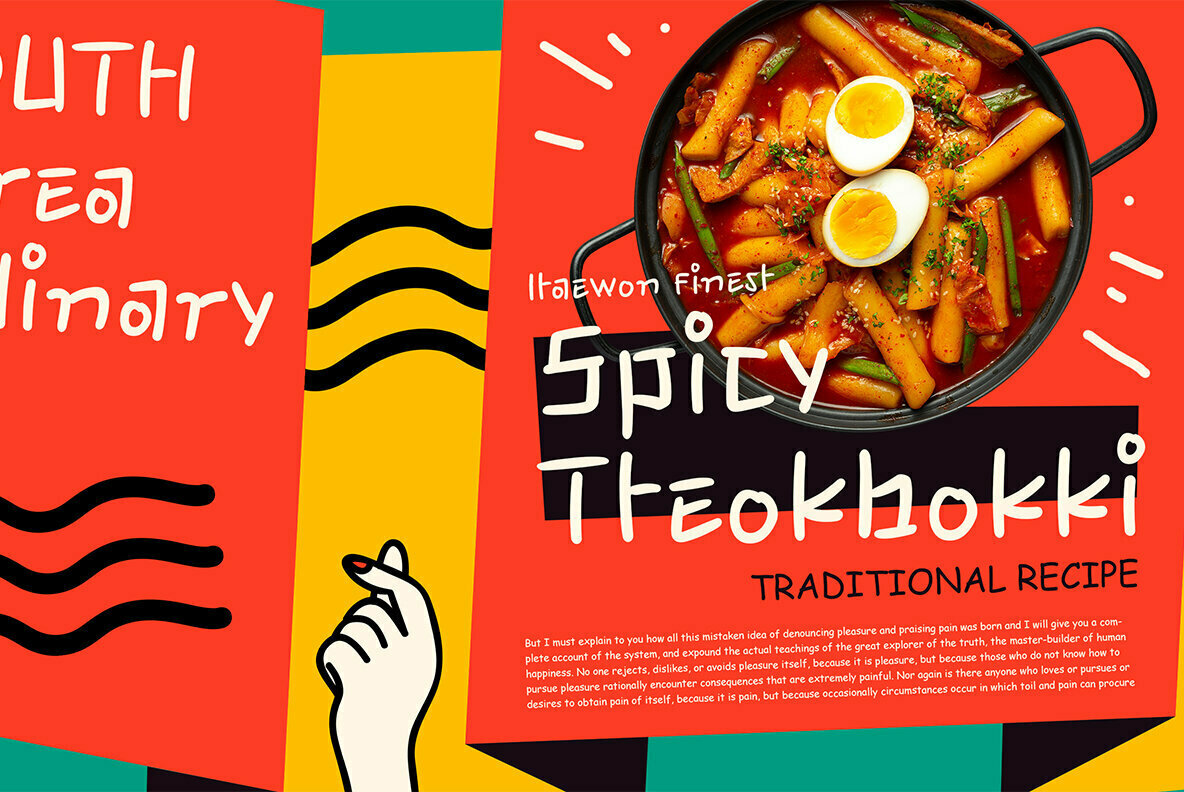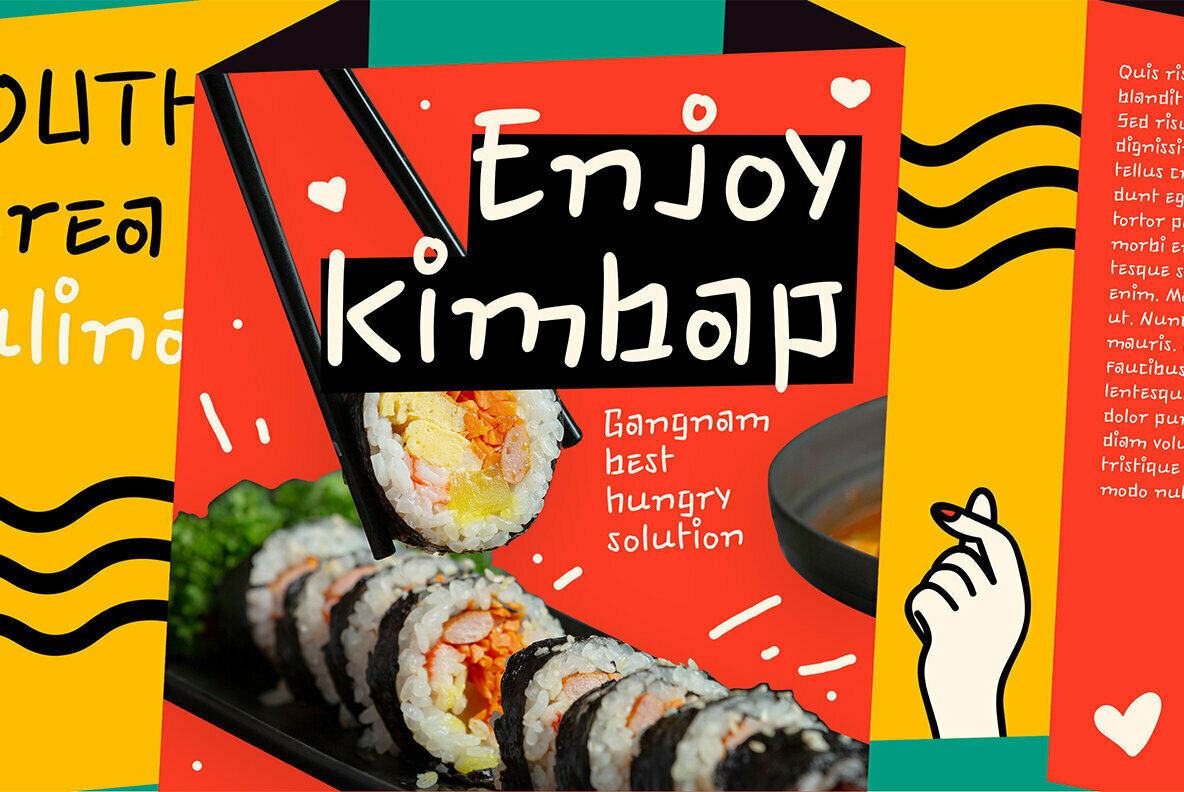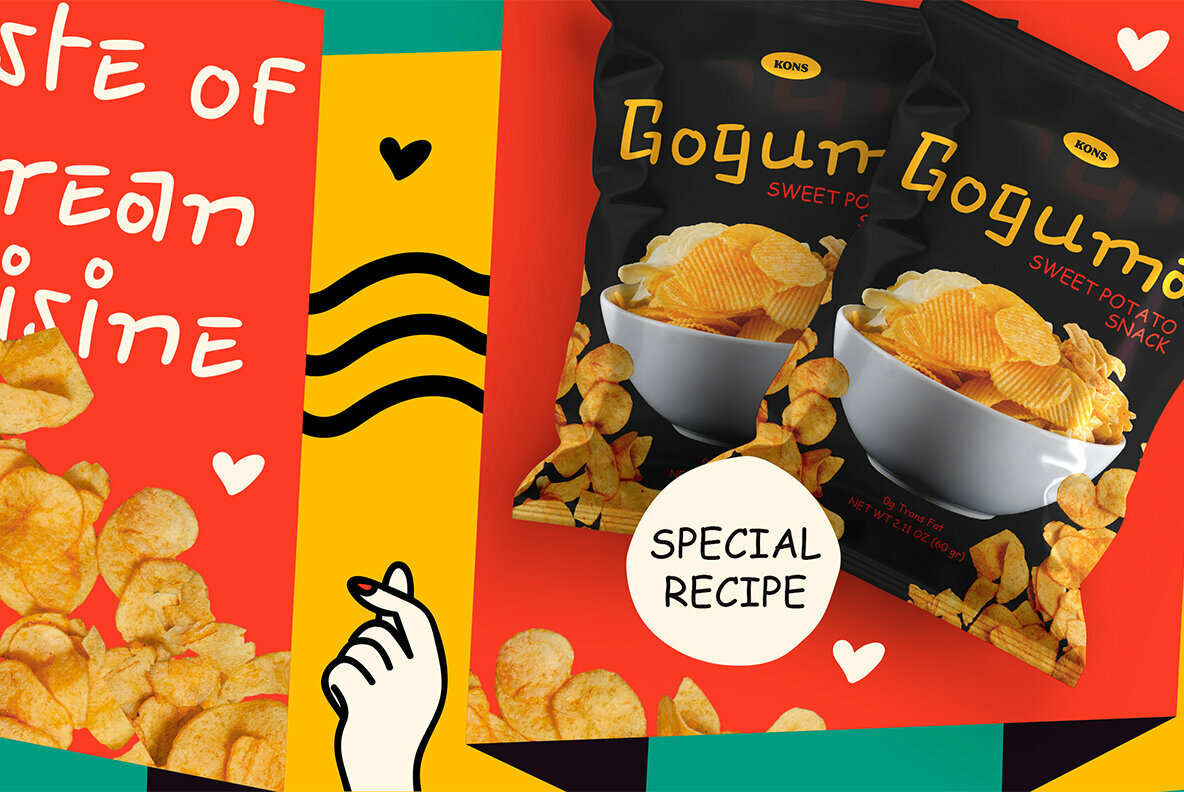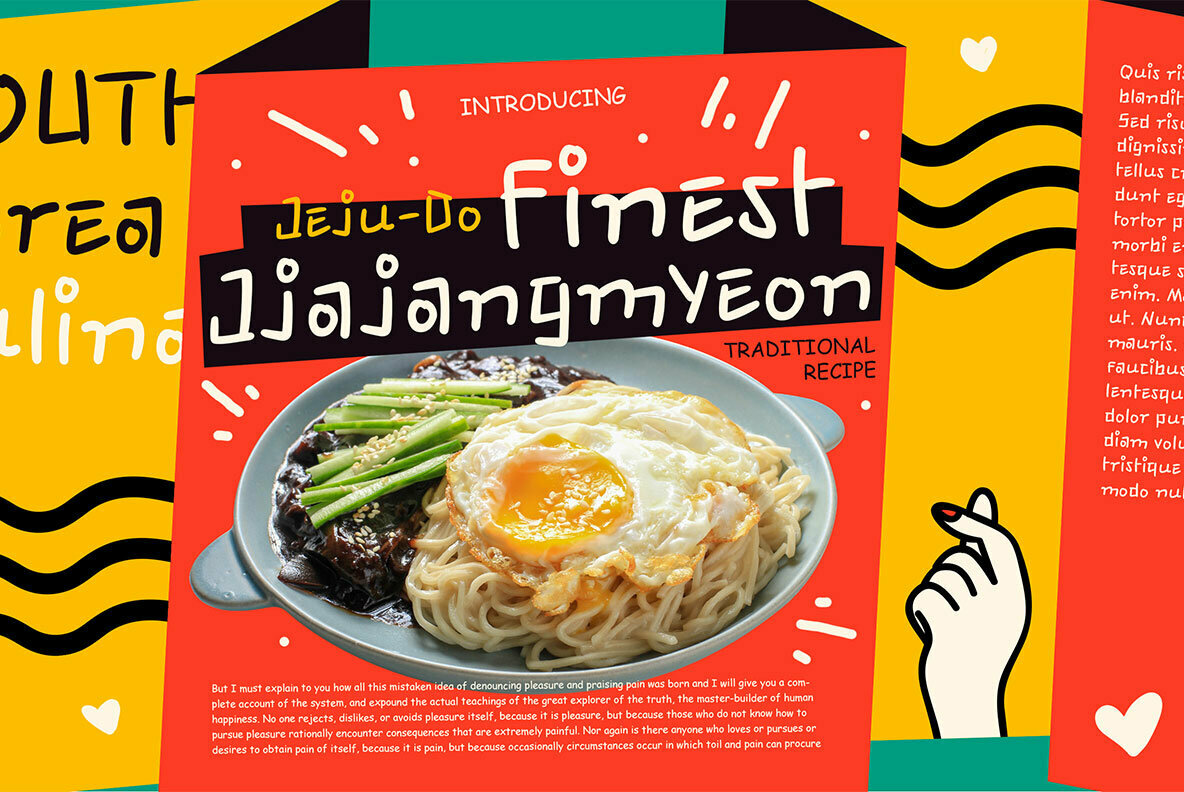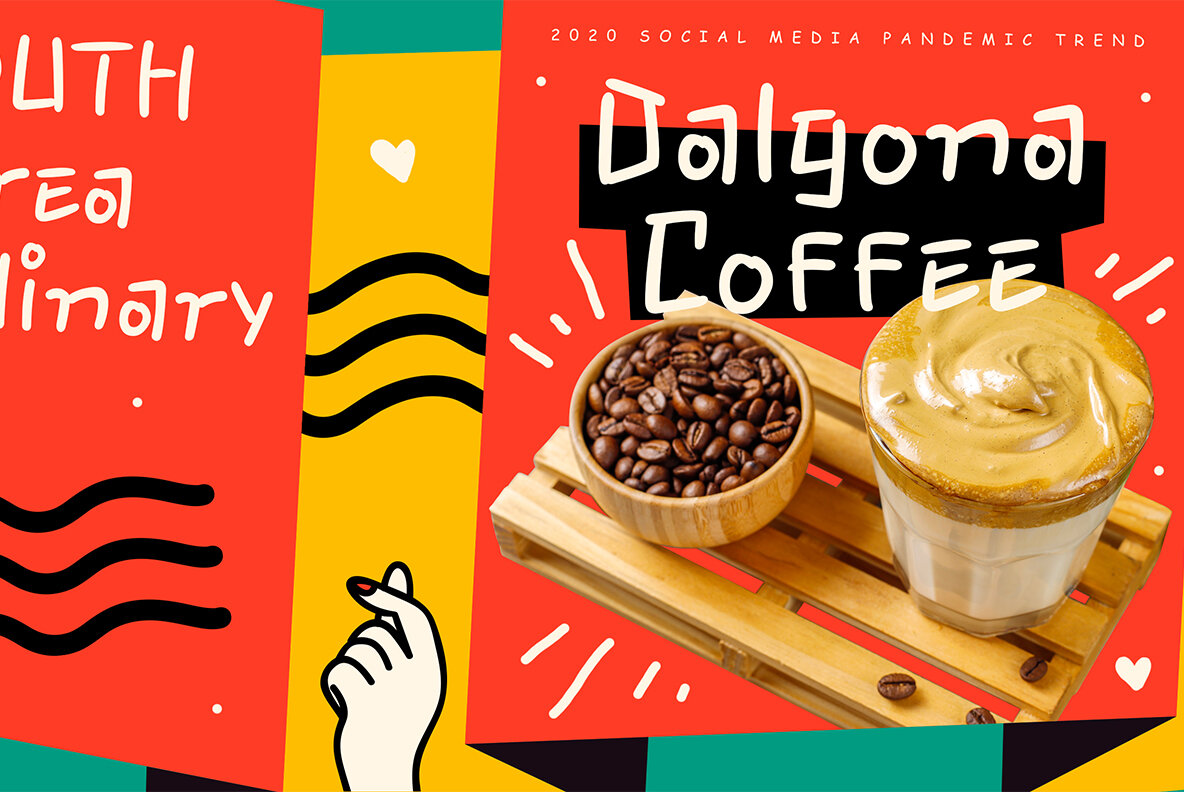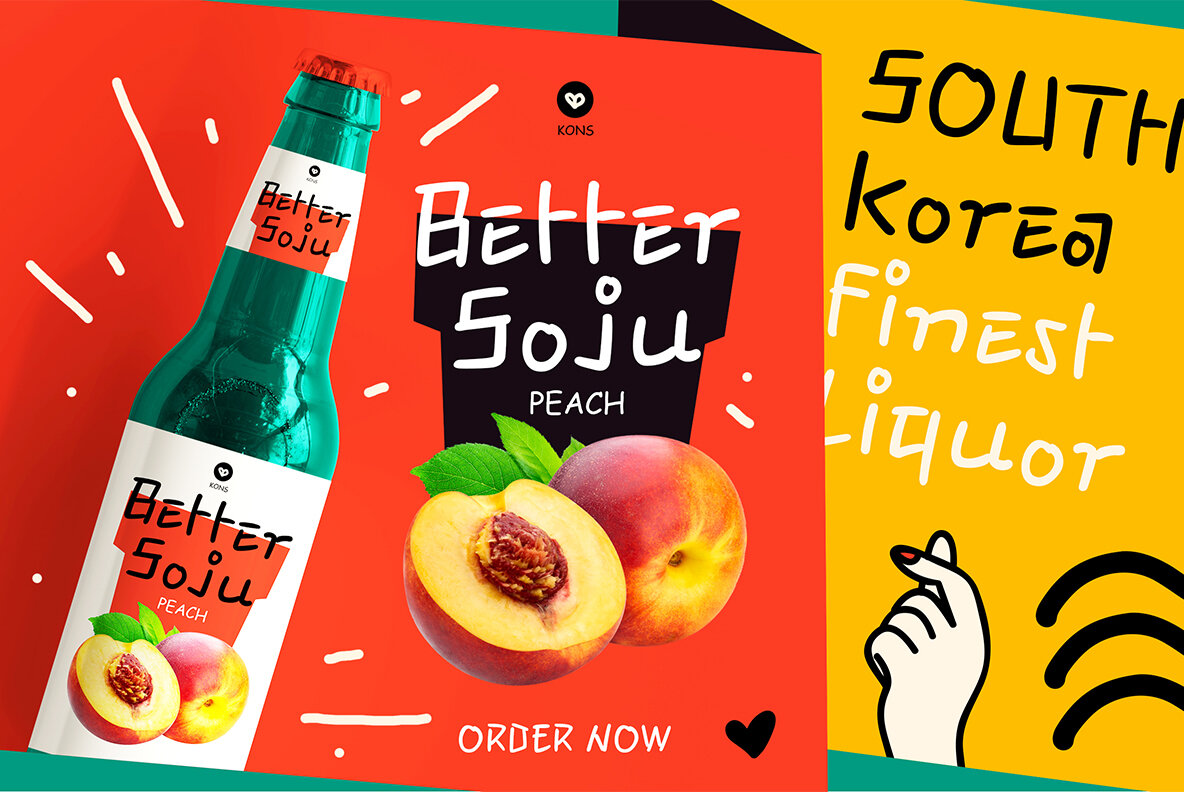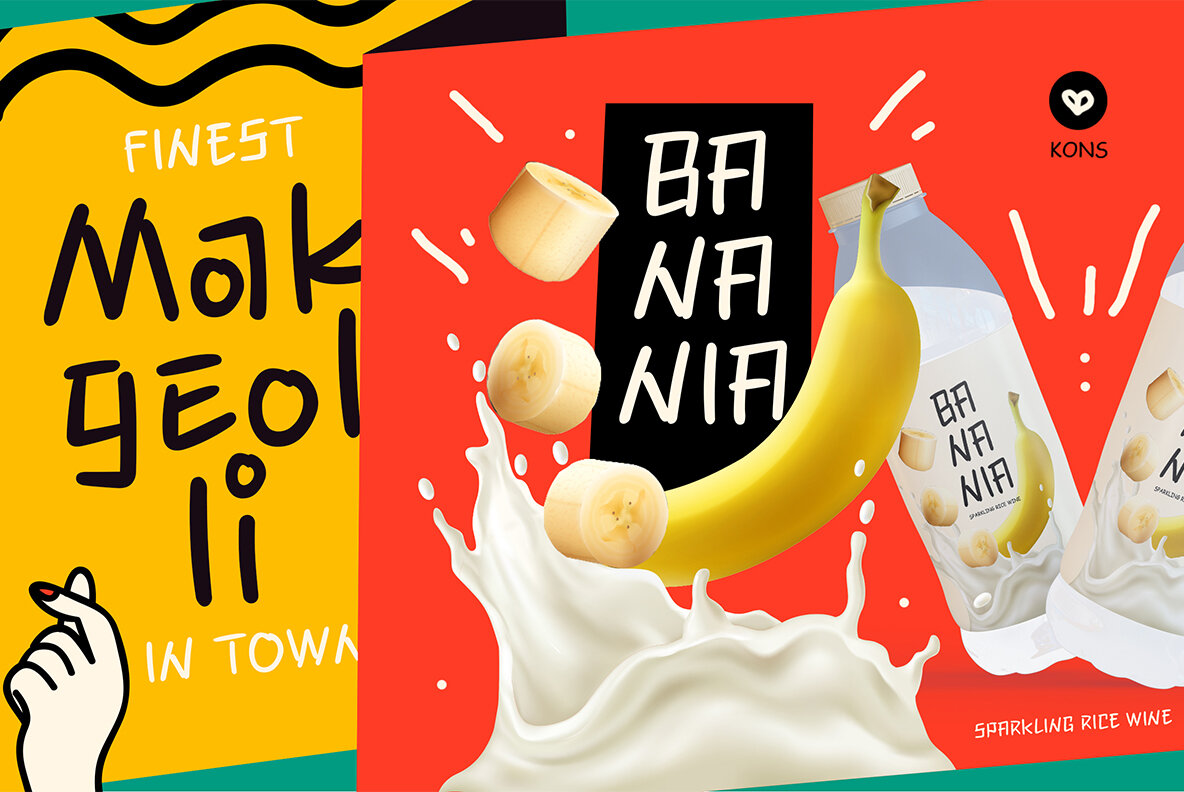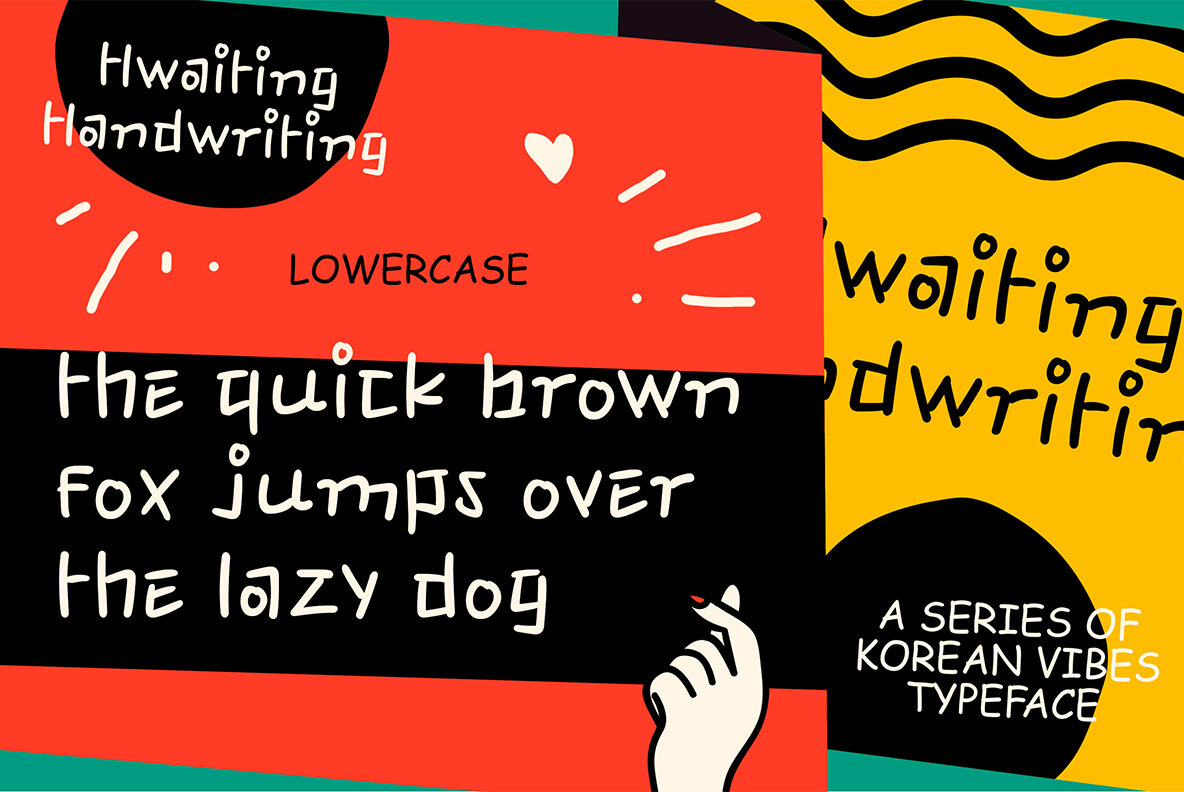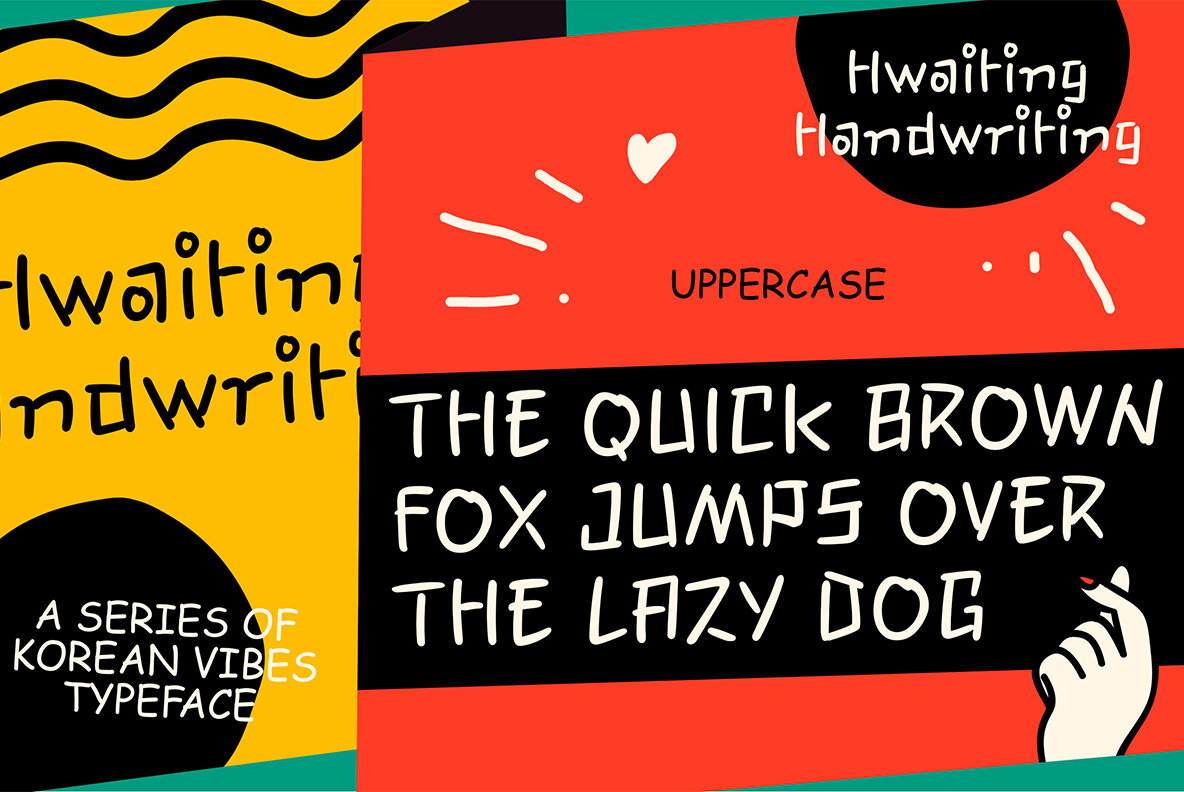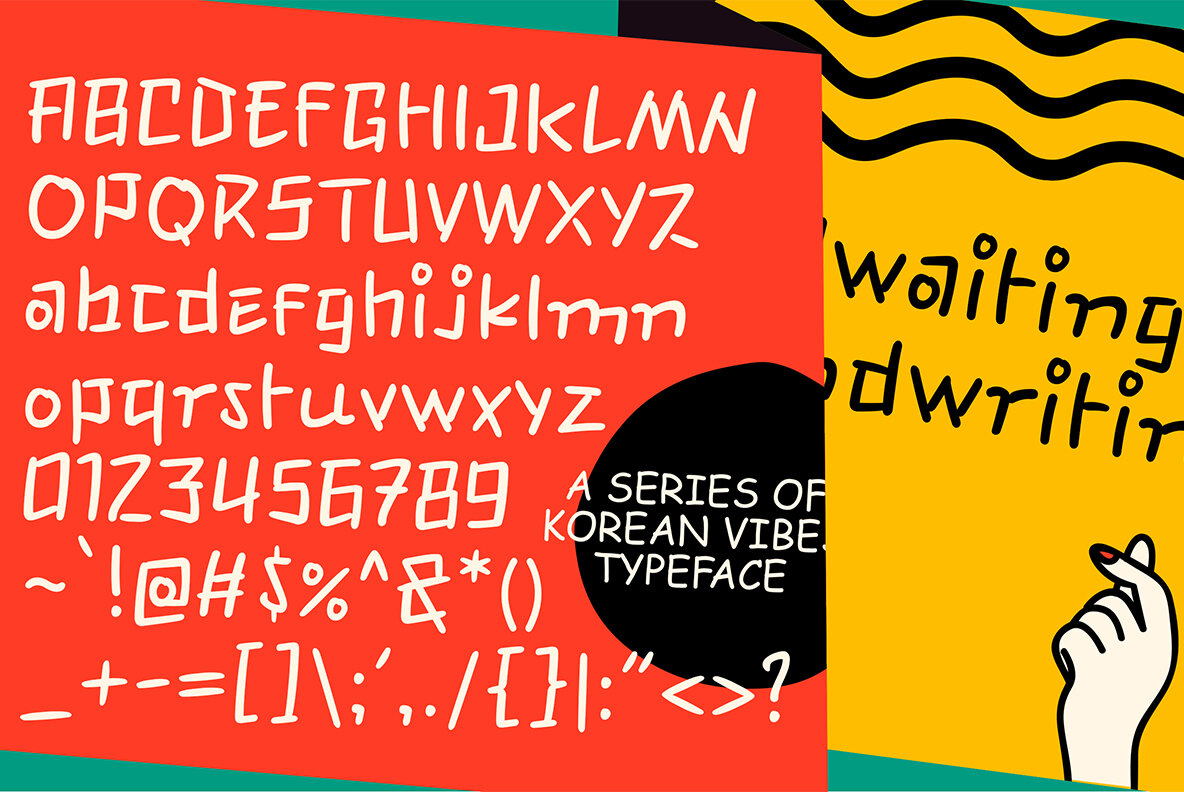
Hwaiting Handwriting Font
Hwaiting Handwriting Regular
Inspired by the emerging Korean culture that grabbing the worldwide actuation in so many realms of the industry. To bridge the vibes and to make it easier to consume, we found the gap to fill with simple things in life that are useful for it, and yes, it’s a new day it’s a new font.
So without any further ado, please welcome Hwaiting Handwriting. 1/3 series of Korean vibes typefaces. It’s handwriting-based fonts with the reference of the ancient style ink and brush strokes but make it modern.
Crafted with deep research about Korean traditional letters, shaped up with the approach of universal Latin letters.